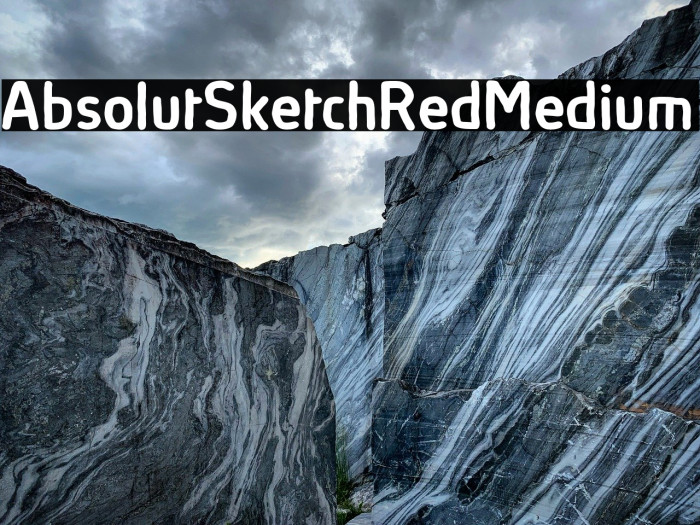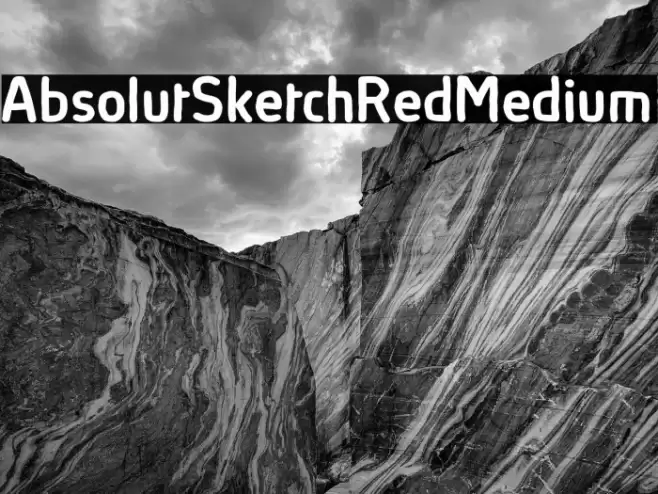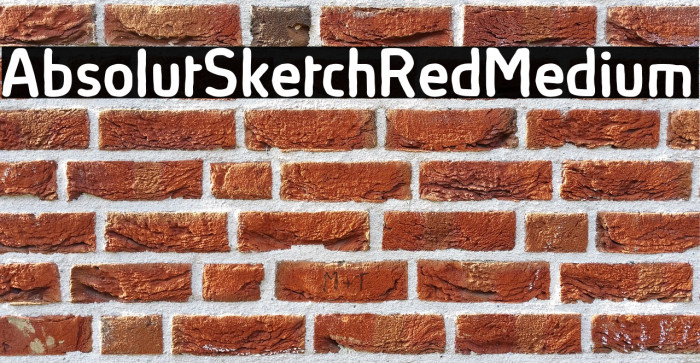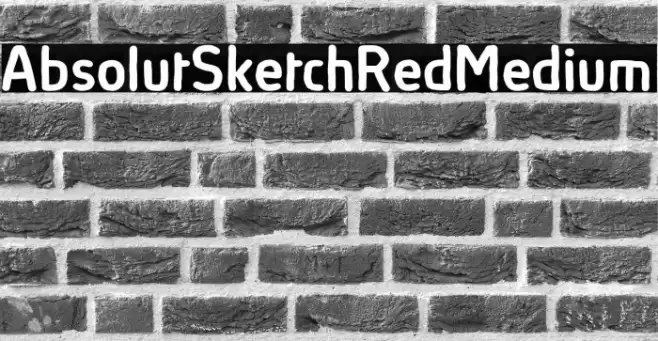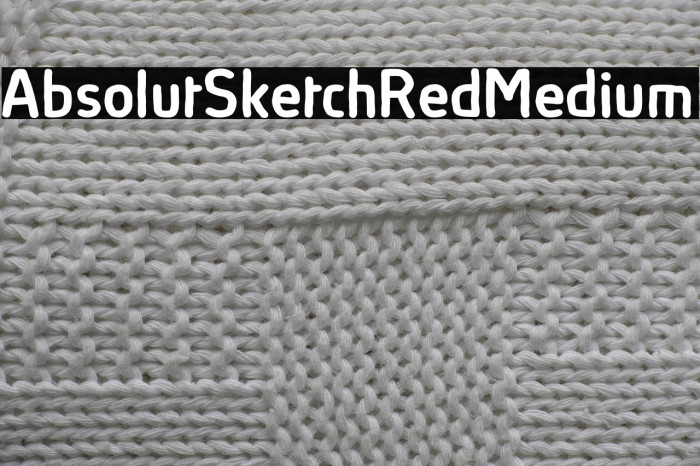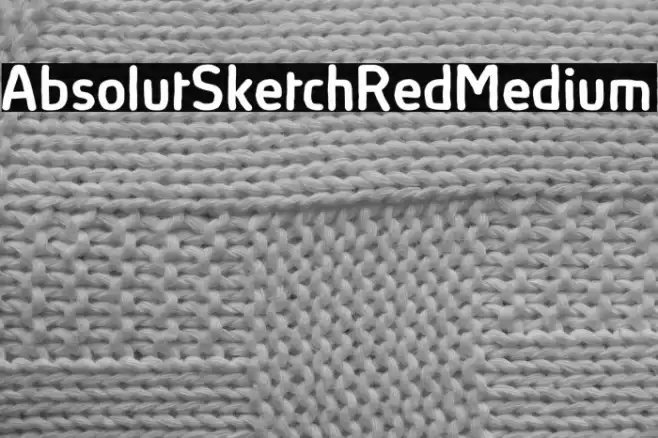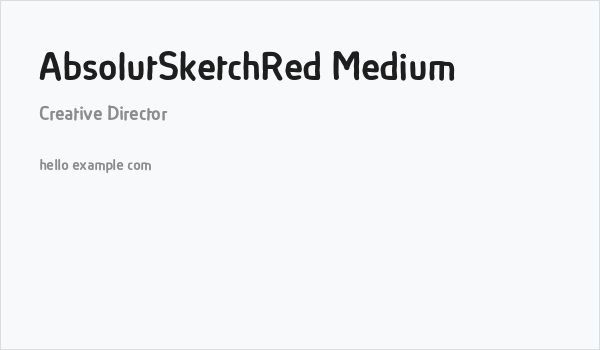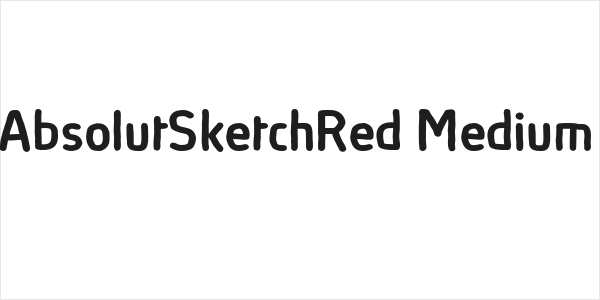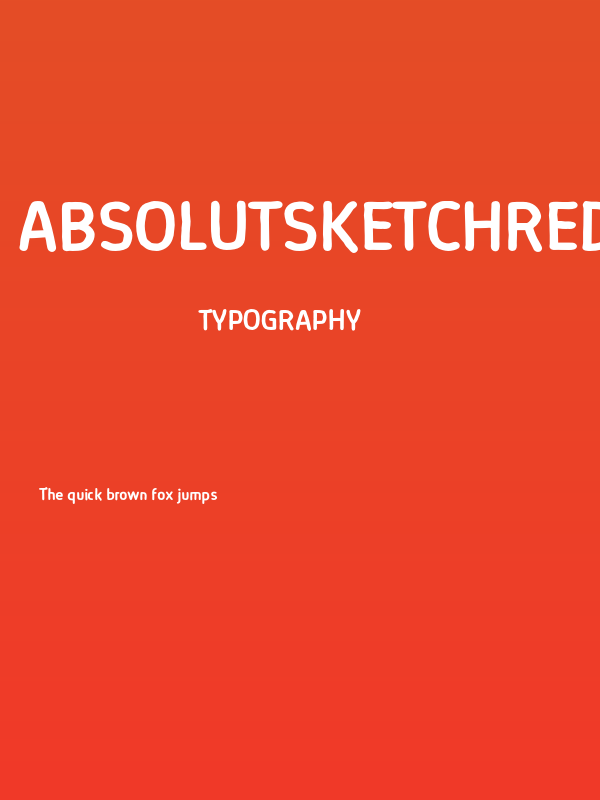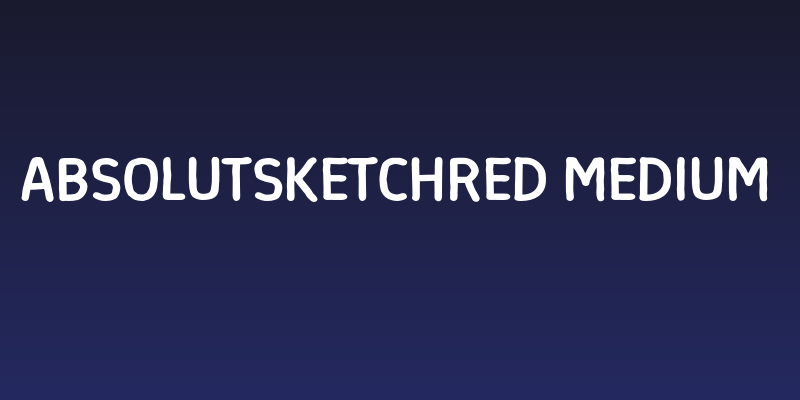
AbsolutSketchRed-Medium Font
AbsolutSketchRed-Medium Description
This font features a playful and hand-drawn style, characterized by its rounded edges and slightly irregular letterforms. The strokes are consistent in width, giving it a uniform appearance while maintaining a casual and approachable feel. The characters are bold and have a slightly condensed width, which makes them stand out without being overwhelming. This font is suitable for projects that require a friendly and informal touch, such as children's books, casual branding, or creative posters. The overall style is modern with a hint of whimsy, making it versatile for various design needs.
| Overall Style | Modern, Whimsical |
| Proposed Projects | Children's books, casual branding, creative posters, informal invitations. |